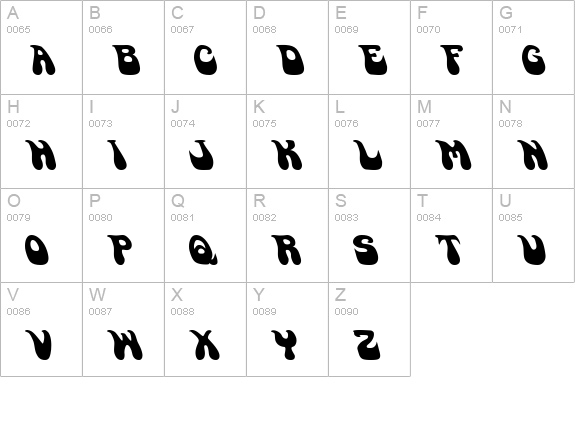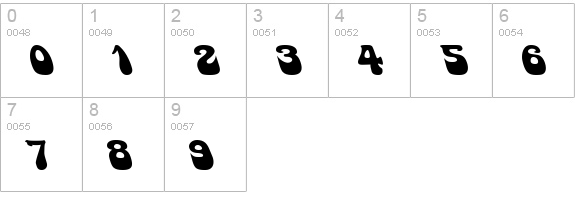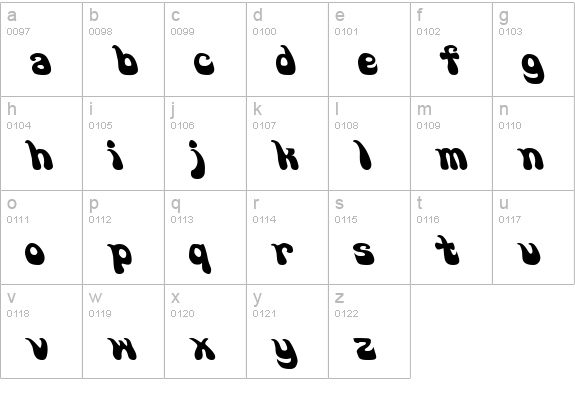
GoSoul Font Details
Introducing GoSoul, a captivating and versatile font that effortlessly combines elegance with modernity. Designed with precision and creativity in mind, GoSoul is perfect for a wide range of design projects, from branding to editorial design. With its sleek lines and unique curves, this font exudes sophistication and style, making it a must-have for any designer looking to make a statement. What sets GoSoul apart is not only its stunning design but also the fact that it is available for free download at FontsMarket.com. Yes, you read that right - this exceptional font can be yours at no cost, allowing you to elevate your designs without breaking the bank. So why wait? Download GoSoul today and let your creativity soar to new heights.